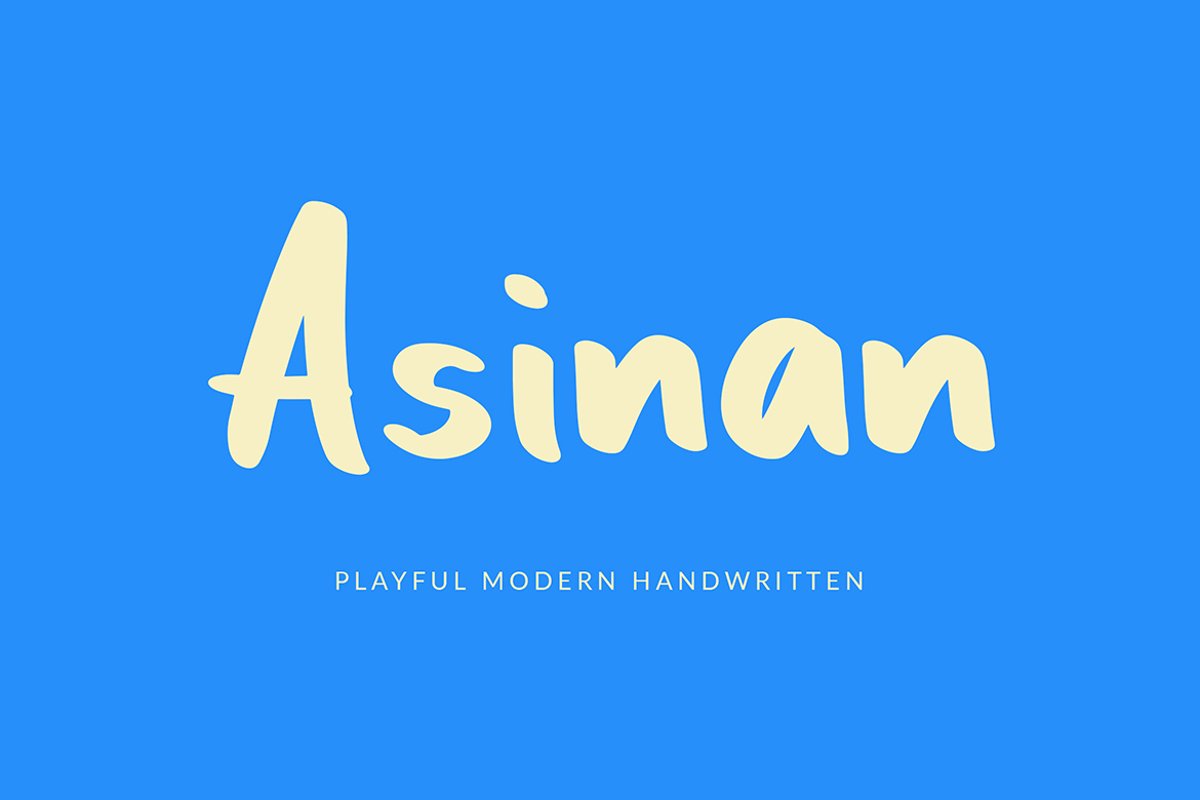
Asinan Playful Handwritten Font
Asinan
Asinan is playful modern handwritten font. This font perfect for branding projects, logo, book cover design, tshirt designs, social media posts, advertisements, product packaging, product designs, label, watermark, invitation, stationery and any projectsWhat's Included :